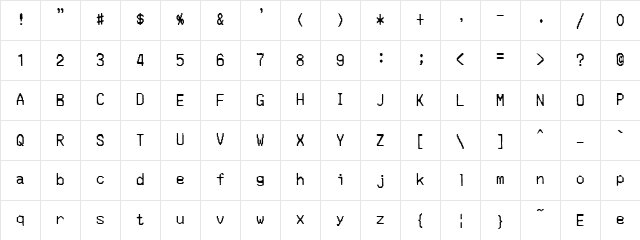
Merchant Copy Regular
Designer: S. John Ross
Design Context for Merchant Copy
Merchant Copy is a composed and adaptable typeface that performs quietly and consistently across a wide range of design contexts.